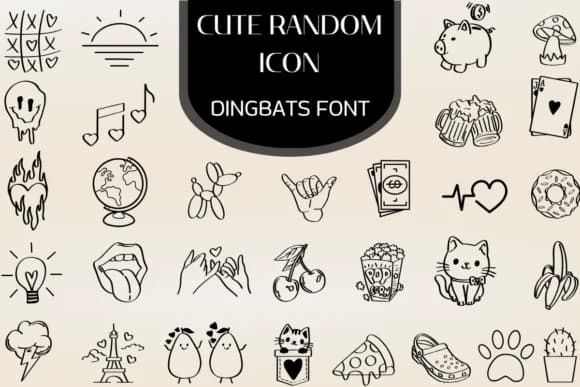
About Cute Random Icons Font
Cute Random Icons from Heartcraft Atelier is a playful dingbat collection where every character feels like a little hand-drawn illustration rather than a typical icon font. The letterforms blend whimsical details (rounded edges, charming expressions, that unmistakable kawaii sensibility) that make them work as standalone decorative elements rather than just typographic utilities.
This collection really shines when you're adding playful character to your designs. Planner sticker layouts get an instant boost from the doodle-forward aesthetic, while bullet journal spreads become more inviting when scattered with these icons. Greeting cards work particularly well with the minimal cartoon style, which feels modern without being cold. Event stationery, DIY scrapbooking projects, social media graphics, and product packaging all gain from embellishments that keep things engaging.
Cute Random Icons Font is a versatile dingbats font that works for both headings and body text. Pair it with a contrasting sans-serif or serif font to add visual interest and a clear distinction between titles and body copy.